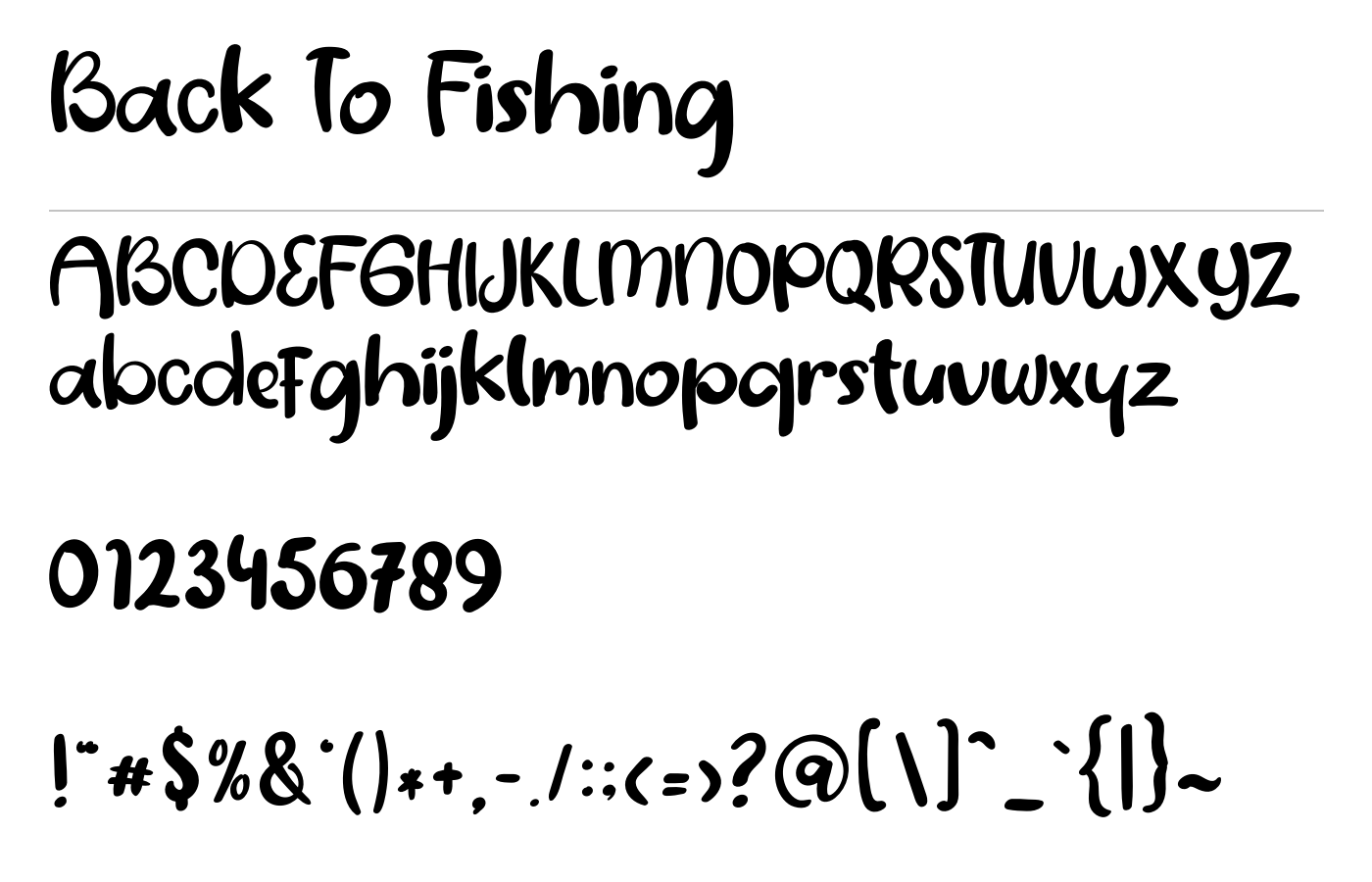
Back To Fishing is a playful and casual handwritten font with a friendly, rounded style that feels approachable and fun. Its medium weight, lively letterforms, and uniform stroke width give it an informal charm, making it ideal for creative projects, children’s content, and relaxed branding that seeks a personal, warm touch. This font works well for logos, posters, and websites where a cheerful and inviting vibe is desired.
Back To Fishing Font
About Back To Fishing Font
| Font family | Back To Fishing Font |
| Designer | Nur Edi Prayitno |